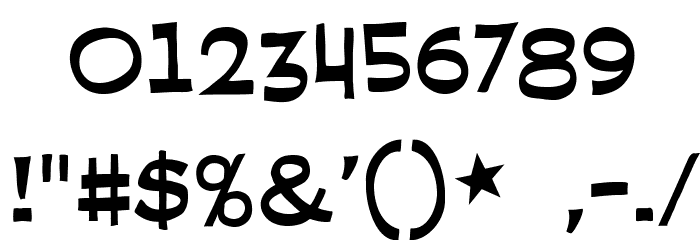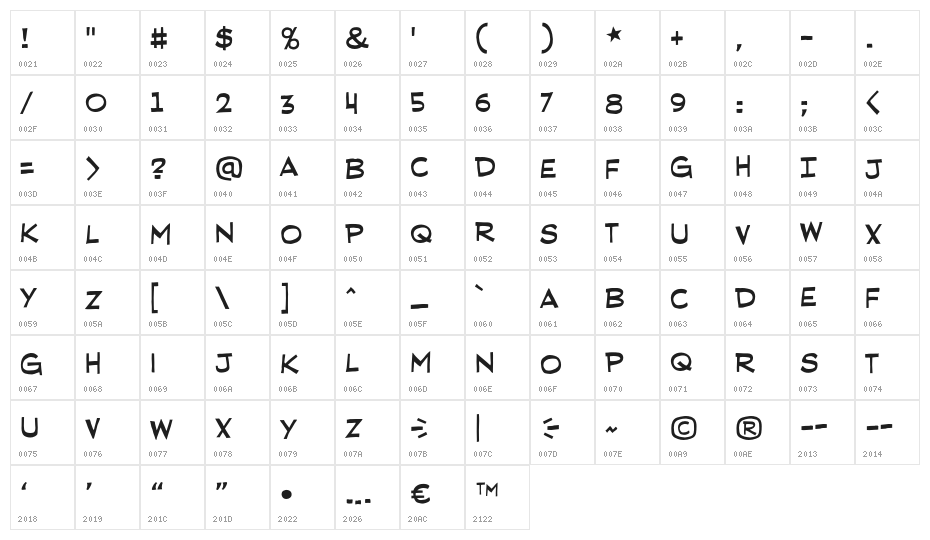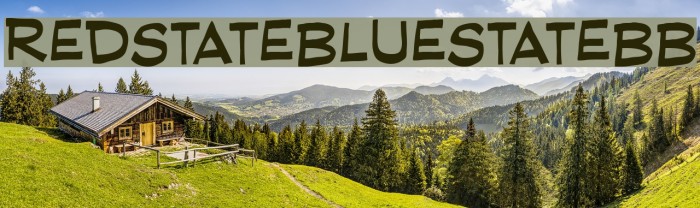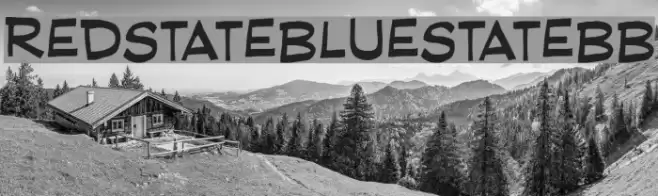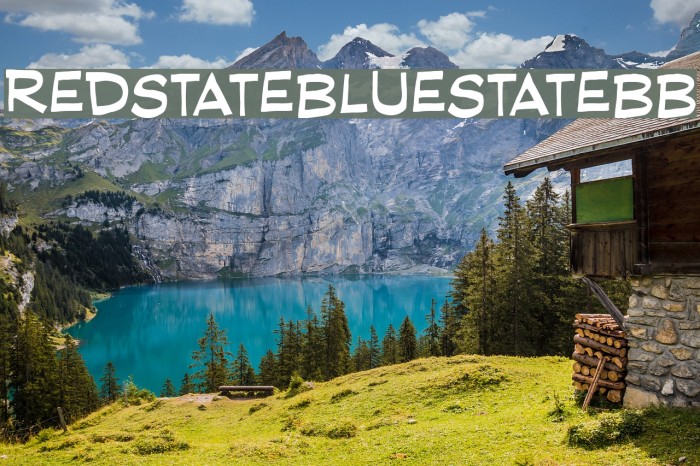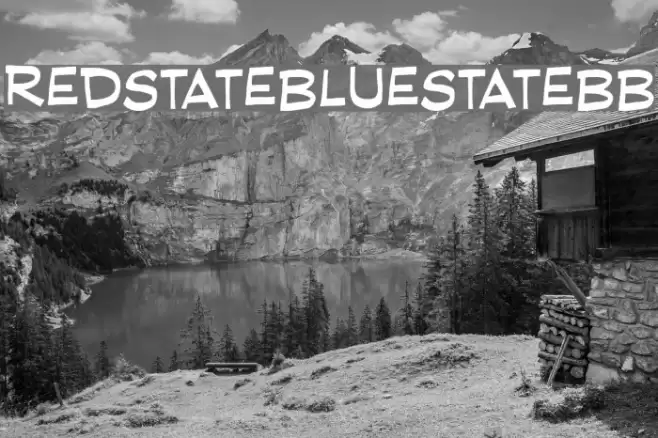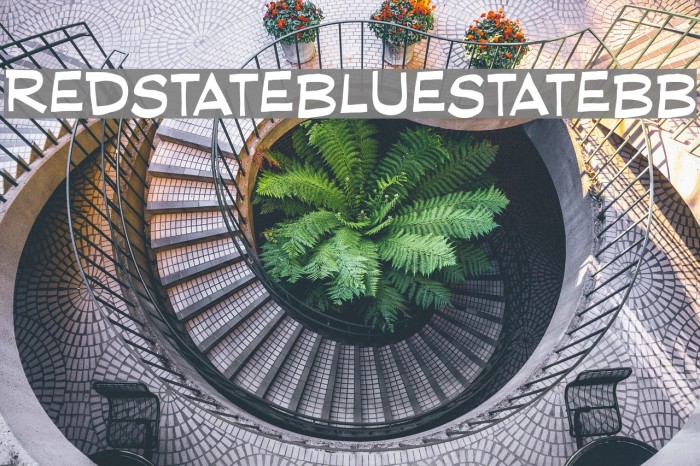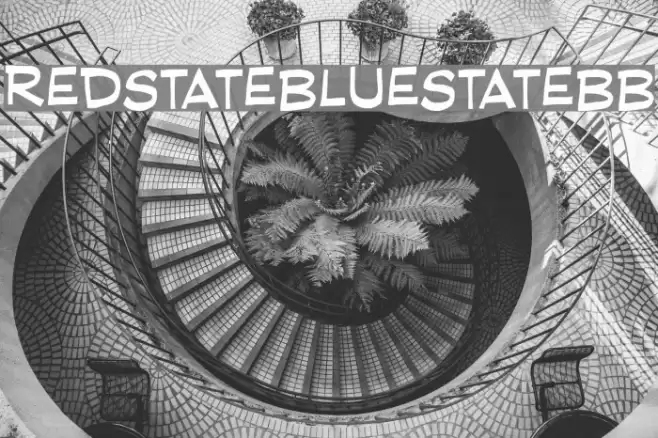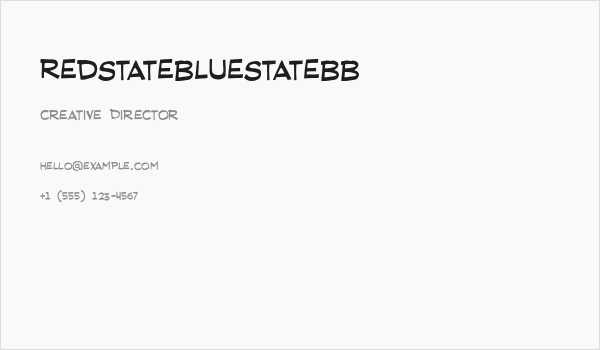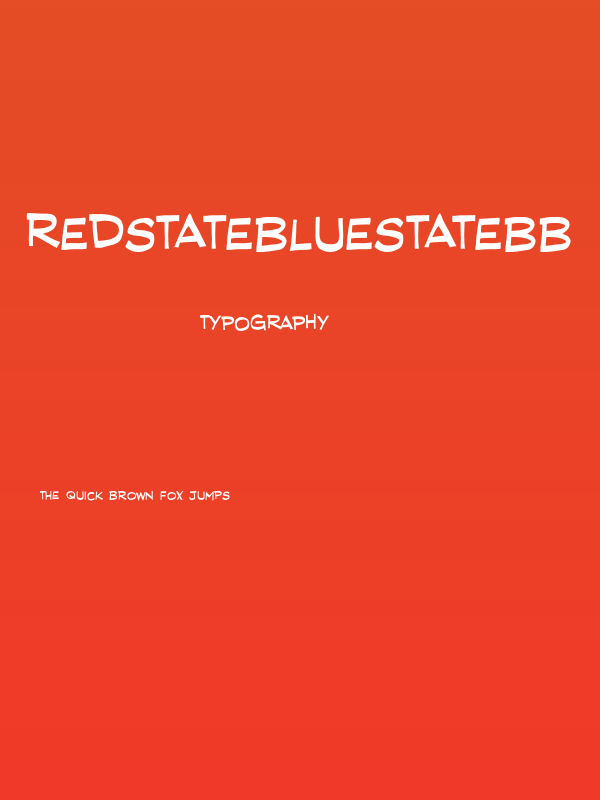
RedStateBlueStateBB Font
RedStateBlueStateBB Description
This font features a playful and informal style, characterized by its bold and slightly irregular letterforms. The strokes are thick and consistent, giving a sense of robustness and energy. The characters have a hand-drawn appearance, with subtle variations in line thickness that add to its casual charm. The overall design is approachable and friendly, making it suitable for projects that require a touch of whimsy or creativity. The numerals and special characters maintain the same lively aesthetic, ensuring a cohesive look across all text elements.
| Overall Style | Playful, Informal |
| Proposed Projects | Ideal for children's books, comic strips, playful branding, and creative posters. |